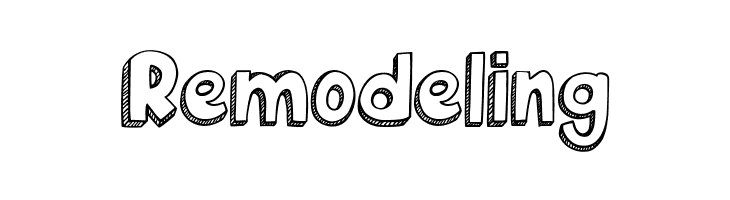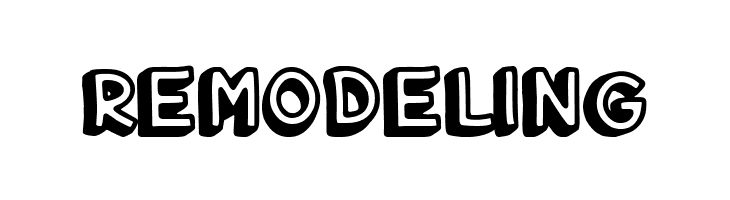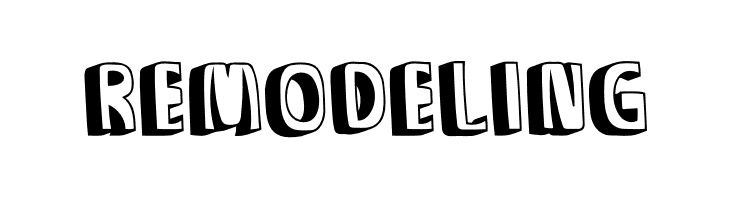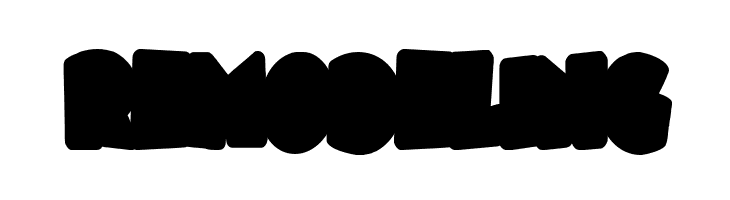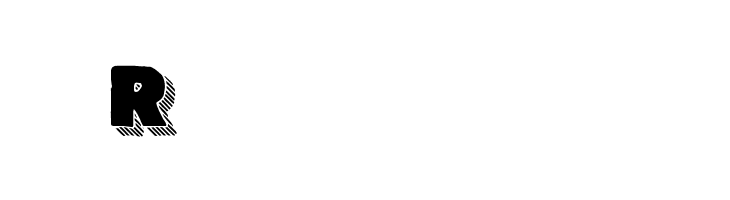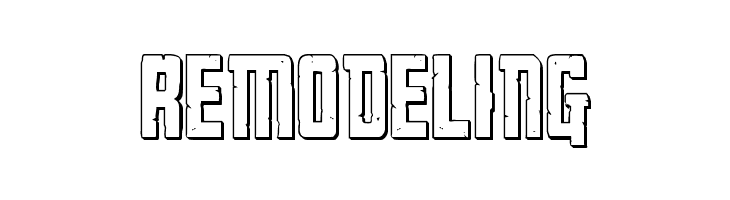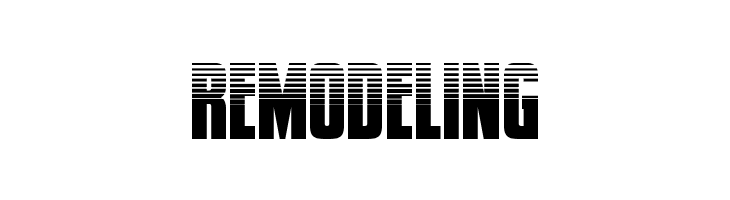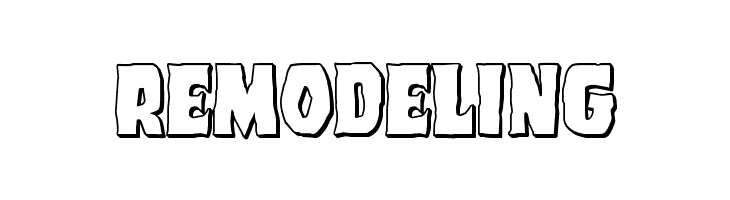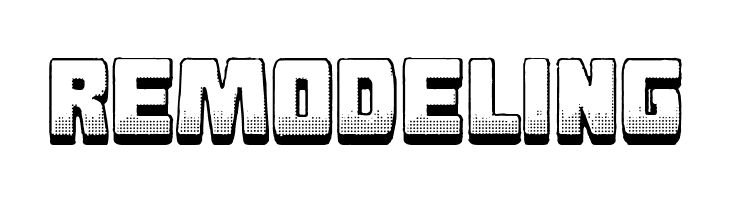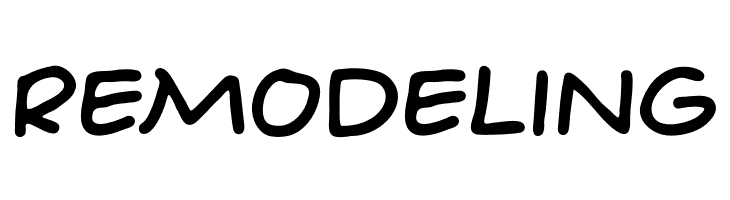
A playful, hand-drawn font with bold outlines and sketch-like texture.
A playful, bold font with a bubble-like, outlined style.
A playful, bold font with a 3D effect, ideal for eye-catching designs.
A bold, playful font with thick, rounded letters and a bubbly appearance.
A bold, 3D shadowed font with a playful and dynamic style.
A bold, 3D geometric font with a retro, comic book style.
A bold, halftone-effect font with a vintage comic book style.
A bold, 3D, comic-style font with irregular, outlined characters.
A bold, 3D font with a retro halftone pattern and shadow effect.
A playful, handwritten font with bold, rounded characters and whimsical symbols.
A bold, dynamic font with a 3D shadow effect and angular, comic-like characters.
A bold, comic-inspired font with a three-dimensional, shadowed effect.
A bold, three-dimensional font with a playful, comic book style.
A bold, playful font with thick, whimsical characters ideal for fun projects.
A playful, bold typeface with rounded, bubble-like characters.
A bold, playful font with a 3D shadow effect, ideal for fun and informal projects.
A bold, sketch-style font with a hand-drawn, comic book aesthetic.
A bold, dramatic font with a strong, comic book-inspired aesthetic.
A playful, handwritten-style font with flowing, cursive-like strokes.
A bold, geometric font with strong, angular lines and a modern, comic book style.
A bold, playful font with a three-dimensional shadow effect, ideal for dynamic and energetic designs.
A playful, handwritten font with lively, interconnected strokes and a whimsical style.
A bold, outlined font with a comic book style and strong visual impact.
A bold, brushstroke-style font with a textured, hand-painted appearance.
A bold, italicized font with a gradient effect and thick outlines, ideal for decorative use.
A bold, 3D geometric font with a retro, comic book style.
A playful, bold, hand-drawn font with a whimsical, comic-like style.
A bold, 3D hand-drawn font with textured hatching and a playful, comic-like style.
A playful, hand-drawn font with bold, rounded characters.
A bold, modern font with a unique horizontal striped pattern.
A bold, playful, and irregular font with a retro comic book style.
A bold, playful font with a retro comic book style and halftone texture.
A bold, dotted font with a retro comic book style.
A bold, dynamic script font with interconnected characters and high contrast.
A playful, hand-drawn font with a 3D relief effect, perfect for comic and creative projects.